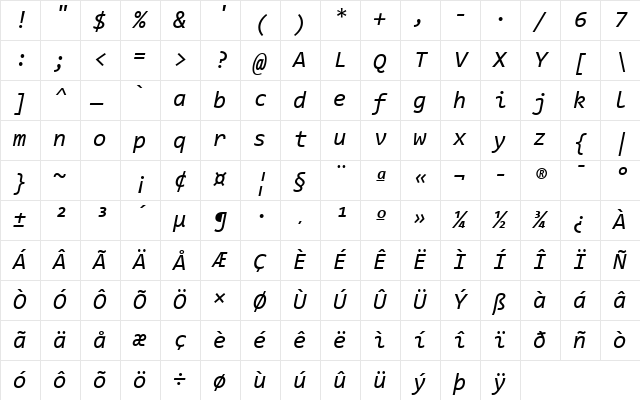
Consolas Italic
Foundry: Microsoft Corporation
Designer: Luc(as) de Groot
Complete Consolas Italic glyph index. Displaying only characters natively supported by Consolas Italic font.
Design Context for Consolas
Consolas is a composed and adaptable typeface that performs quietly and consistently across a wide range of design contexts. The slanted form adds forward momentum and visual energy.